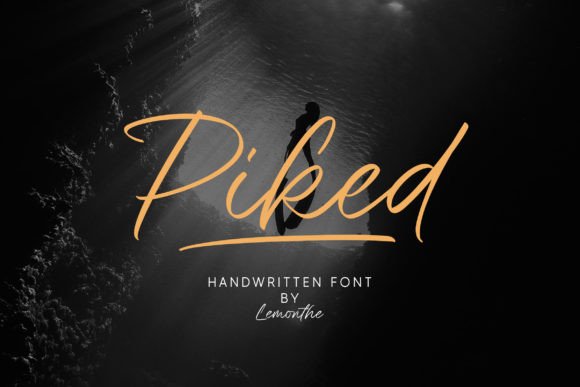
Journey into the world of Piked Font, a captivating script font family that will leave you mesmerized with its elegance and charm. Handcrafted with precision, Piked Font captures the essence of handwritten calligraphy, bringing a personal touch to your creative endeavors. Embark on a voyage of artistic expression with this enchanting font, designed to evoke emotions and create unforgettable designs.
Dive into the depths of creativity with Piked Font's extensive collection of 90 ligatures and swashes, allowing you to unleash your imagination and craft designs that are truly unique and captivating. Each letter dances across the screen, harmonizing perfectly to create a symphony of visual delight. The fluid strokes and graceful curves of Piked Font will elevate your projects, adding a touch of sophistication and refinement.
Experience the versatility of Piked Font, a font family that seamlessly adapts to a multitude of design projects. Whether you're crafting logos that demand attention or designing invitations that exude charm, Piked Font will effortlessly elevate your creations. Let your imagination run wild as you explore the endless possibilities, from stationery that reflects your individuality to product designs that captivate your audience.
With Piked Font, the possibilities are boundless. It's the perfect companion for photographers seeking to add a personal touch to their masterpieces, and for crafters desiring labels that exude elegance. Unleash your creativity and let Piked Font guide you towards designs that resonate with your audience, leaving an everlasting impression.
Don't settle for ordinary fonts. Embrace the beauty of Piked Font, a font family that will transform your designs into works of art. Experience the magic of handwritten calligraphy, the versatility of endless applications, and the emotional connection that Piked Font fosters. As you embark on your creative journey, let Piked Font be your muse, inspiring you to create designs that captivate and inspire.